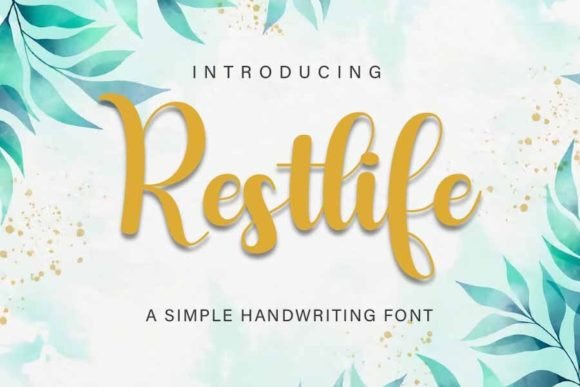
Dive into the world of passion and elegance with Restlife Font, the enchanting script calligraphy font brimming with charm and sophistication. Every letter dances with a delicate poise, exuding a timeless beauty that captures the essence of love and romance. Crafted with meticulous care by the talented Merry Joana, Restlife Font is a creative masterpiece that elevates your designs to new heights.
Express your heartfelt sentiments with the flowing curves and graceful swashes of Restlife Font. It's the perfect choice for wedding invitations, adding a touch of elegance and romance to your special day. Whether you're creating heartfelt love letters or designing captivating sublimation prints, Restlife Font weaves its magic, leaving a lasting impression on your audience.
Unlock your creativity and explore the endless possibilities with Restlife Font. Its versatility shines in stickers, cards, and birthday designs, adding a touch of whimsy and delight. Unleash your imagination and create farmhouse designs that exude warmth and charm, or bring your t-shirt designs to life with Restlife Font's captivating style.
Indulge in the beauty of Restlife Font and transform your designs into captivating expressions of love and joy. Its striking presence is sure to leave a lasting impact on friends, family, and customers alike. Embrace the charm of Restlife Font and let your creativity flourish.